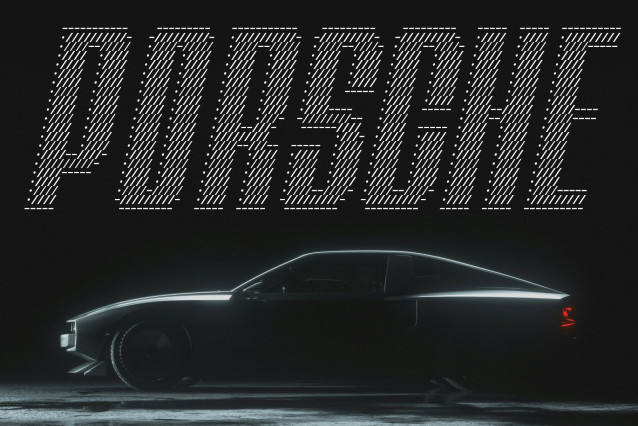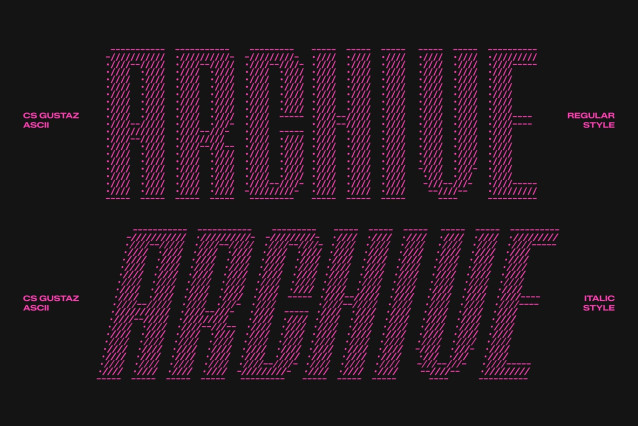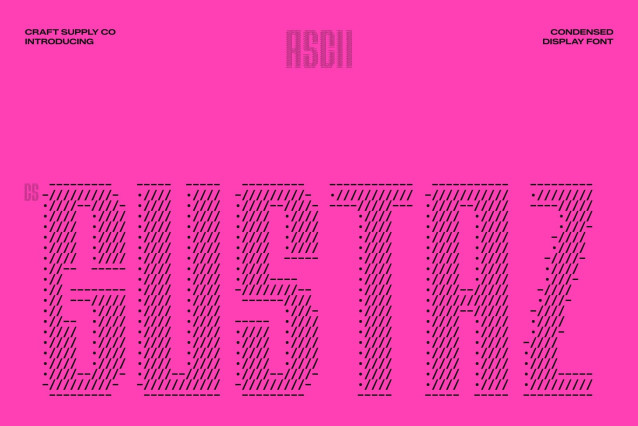
CS Gustaz Ascii – Modern Condensed Display Font with Industrial Boldness
Bold Industrial Structure Reimagined in ASCII
this font transforms the strong personality of a modern condensed display font into a striking ASCII-based typographic system. Each character is carefully assembled from symbolic elements, forming tall, compact, and visually engineered letterforms. This construction creates a powerful digital aesthetic where industrial strength meets expressive ASCII artistry, resulting in typography that feels commanding and modern.
Engineered for Tight and High-Impact Layouts
Designed with condensed proportions, this font maximizes space efficiency while preserving clarity and visual balance. Its narrow structure allows more content to fit into limited layouts without losing readability. The ASCII styling enhances this precision by adding a layered digital texture, making headlines and titles feel structured, dense, and visually impactful in any composition.